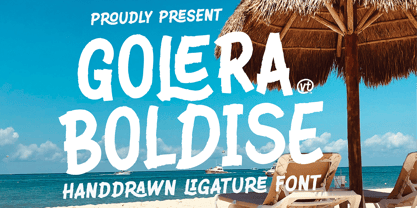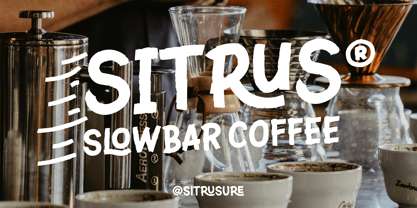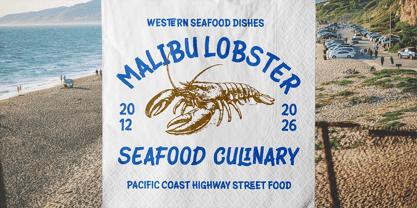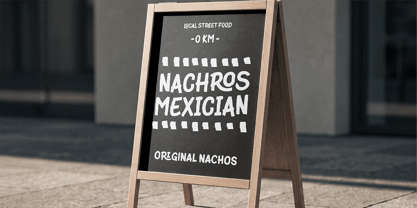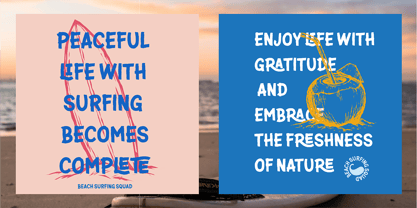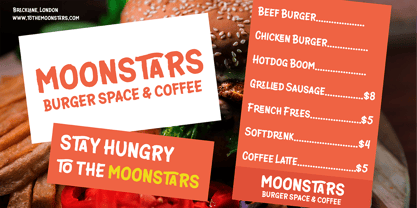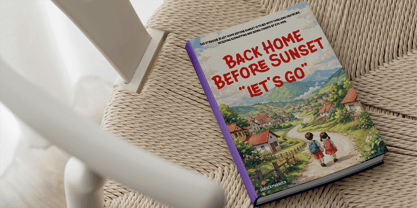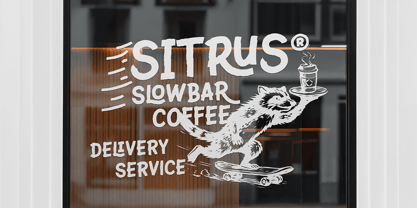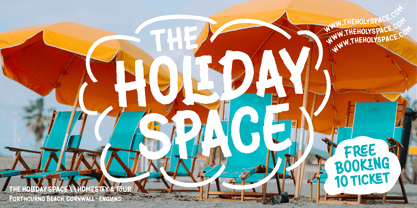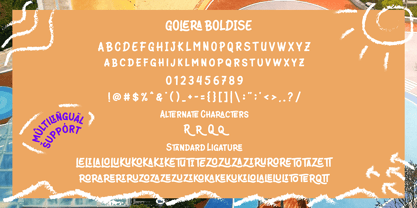
Golera Boldise
The Golera Boldise Font Family was designed by Lukman Hidayat and published by Viaction Type.Co. Golera Boldise contains 2 styles and family package options. More about this family
Introducing Golera Boldies, a unique handrawn sans serif font crafted to bring a natural, organic feel into your design projects. This font captures the essence of authentic hand-drawn strokes, carefully designed to mimic real handwriting with subtle imperfections, making every letter feel alive and expressive. Built with a modern yet artistic approach, Golera Boldies features extensive ligatures that seamlessly connect characters, creating a smooth and visually appealing flow. The rich set of alternate characters allows you to explore creative variations, giving your typography a more dynamic and custom look. Perfect for a wide range of design needs such as branding, packaging, logos, social media, posters, and editorial layouts, this font delivers both readability and personality in one complete typeface. The font comes in two versatile styles: Regular – clean and balanced for everyday use Oblique – slightly slanted for a more expressive and dynamic feel Whether you’re designing for a modern brand or a handcrafted aesthetic, Golera Boldies will elevate your work with its handmade charm and professional quality. Features Hand-drawn sans serif style with natural stroke texture Rich ligatures for smooth letter connections Multiple alternate characters for creative flexibility Clean and readable design with artistic touch 2 styles: Regular & Oblique Multilingual support (basic Latin)